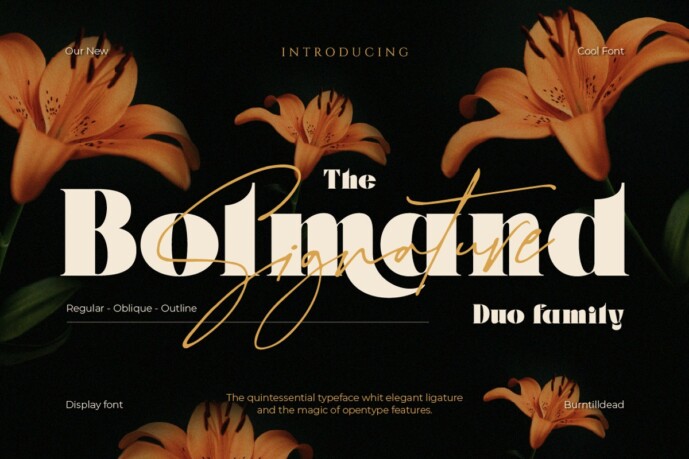
Bolmand Signature Font
Designer: Burntilldead
Introducing Bolmand Signature Duo Family, a perfect blend of bold elegance and handwritten charm, Bolmand Signature is a sophisticated duo font featuring display serif and a signature script that complement each other beautifully. With three serif styles: regular, Oblique and Outline also include ligatures and alternates, giving you creative flexibility and typography aesthetics. Designed with precision, Bolmand brings a balance of modern and classic. Perfect for branding, logos, packaging, editorial design, wedding invitations, and more.
Features:
• A – Z set (Uppercase & Lowercase)
• Number
• Punctuation
• Alternate
• Ligature
• Multilingual
• Bolmand Characters Map